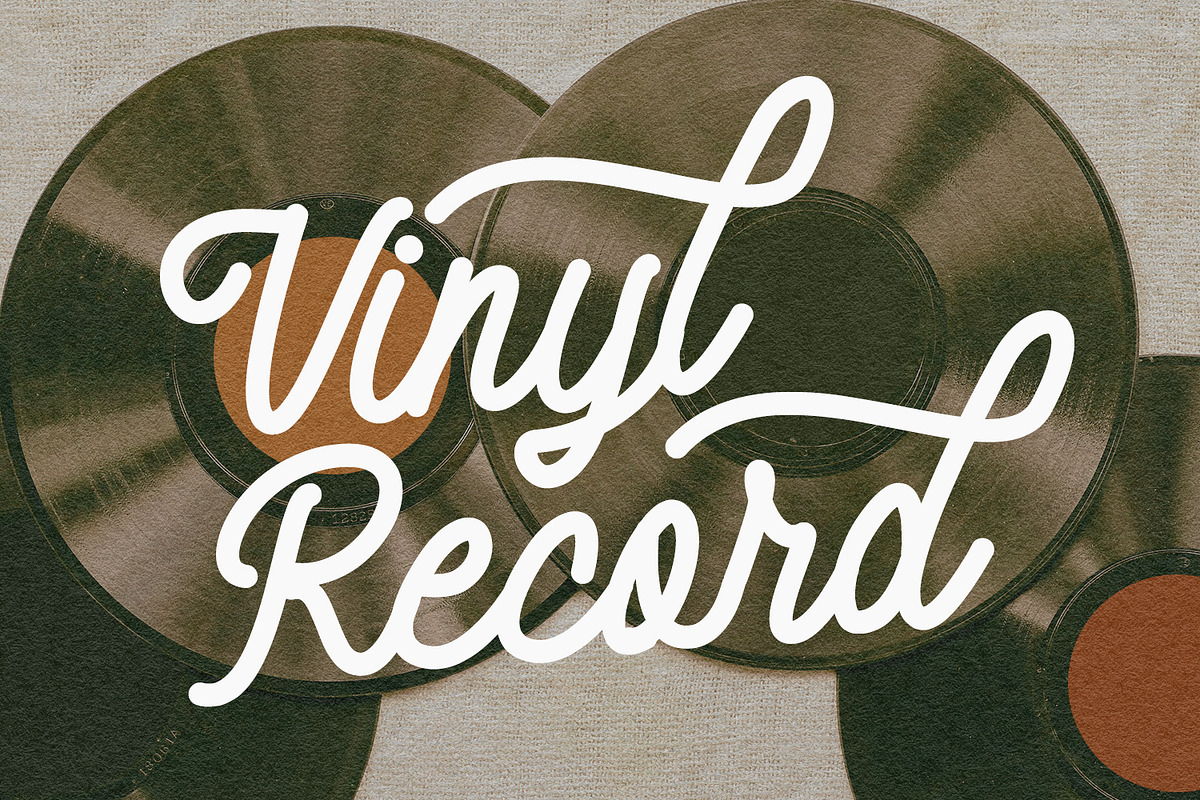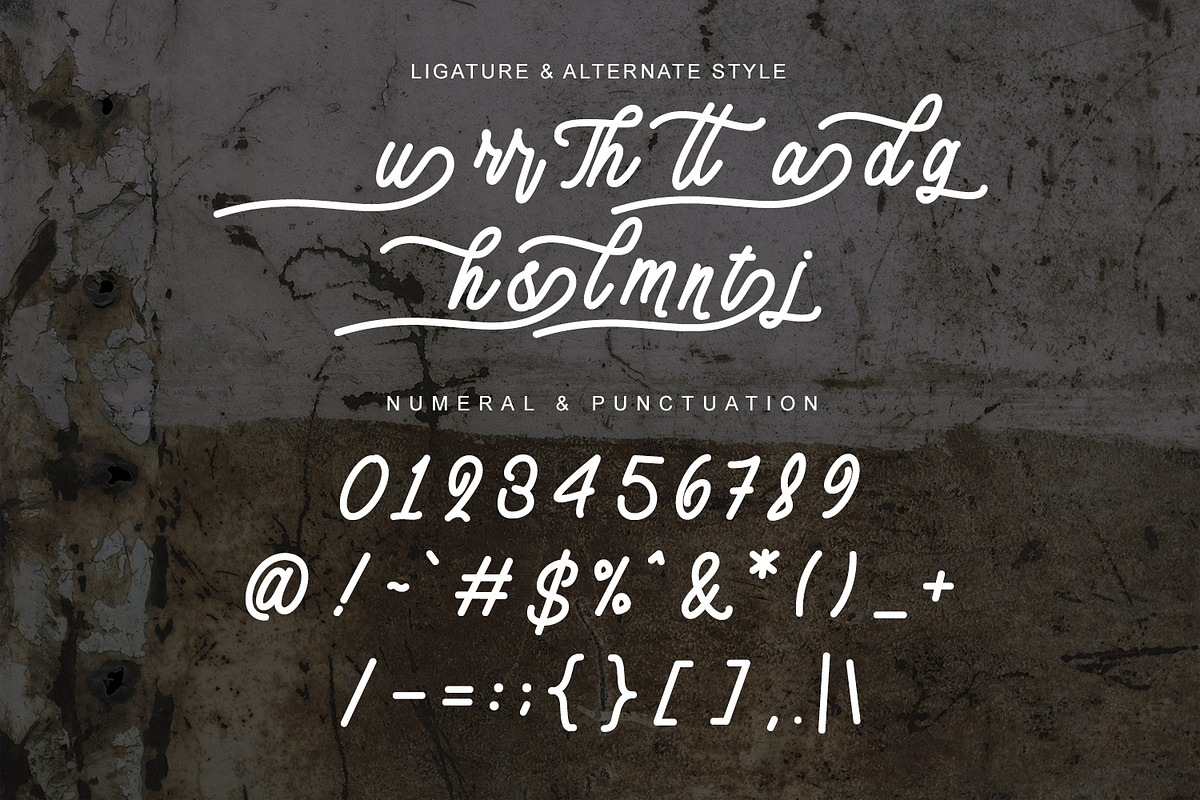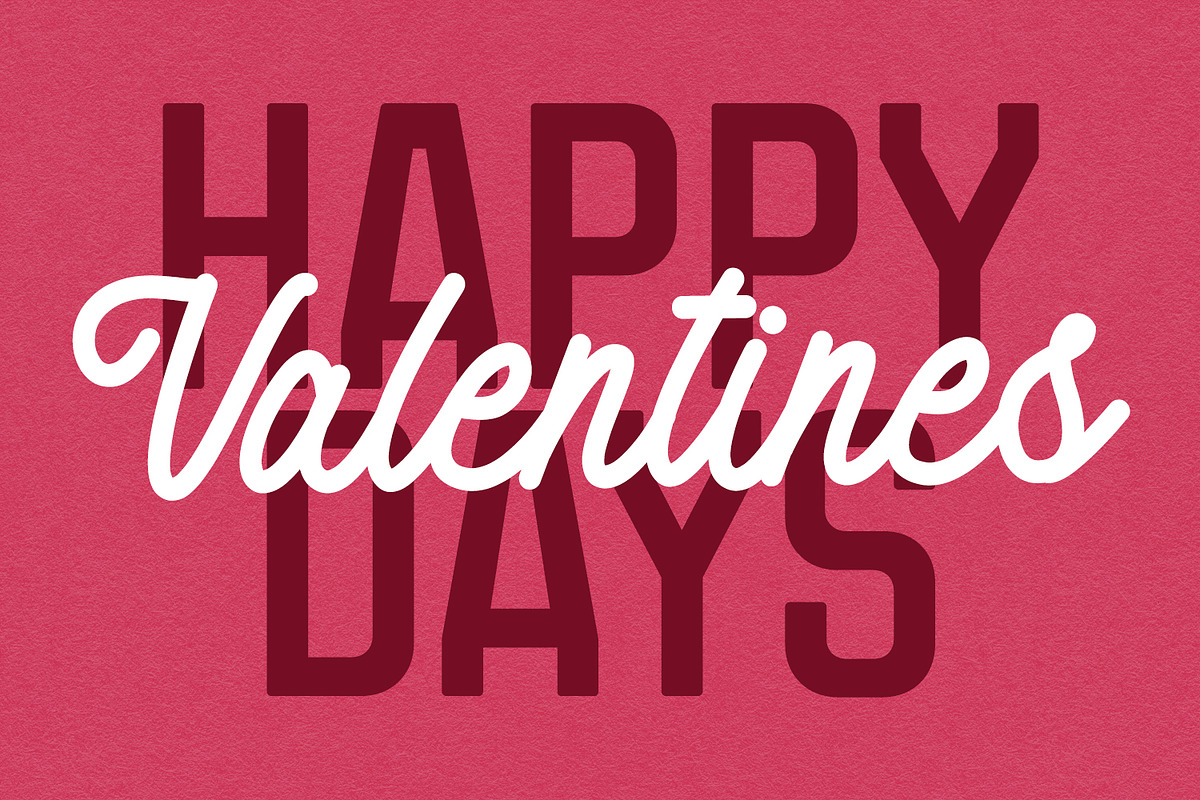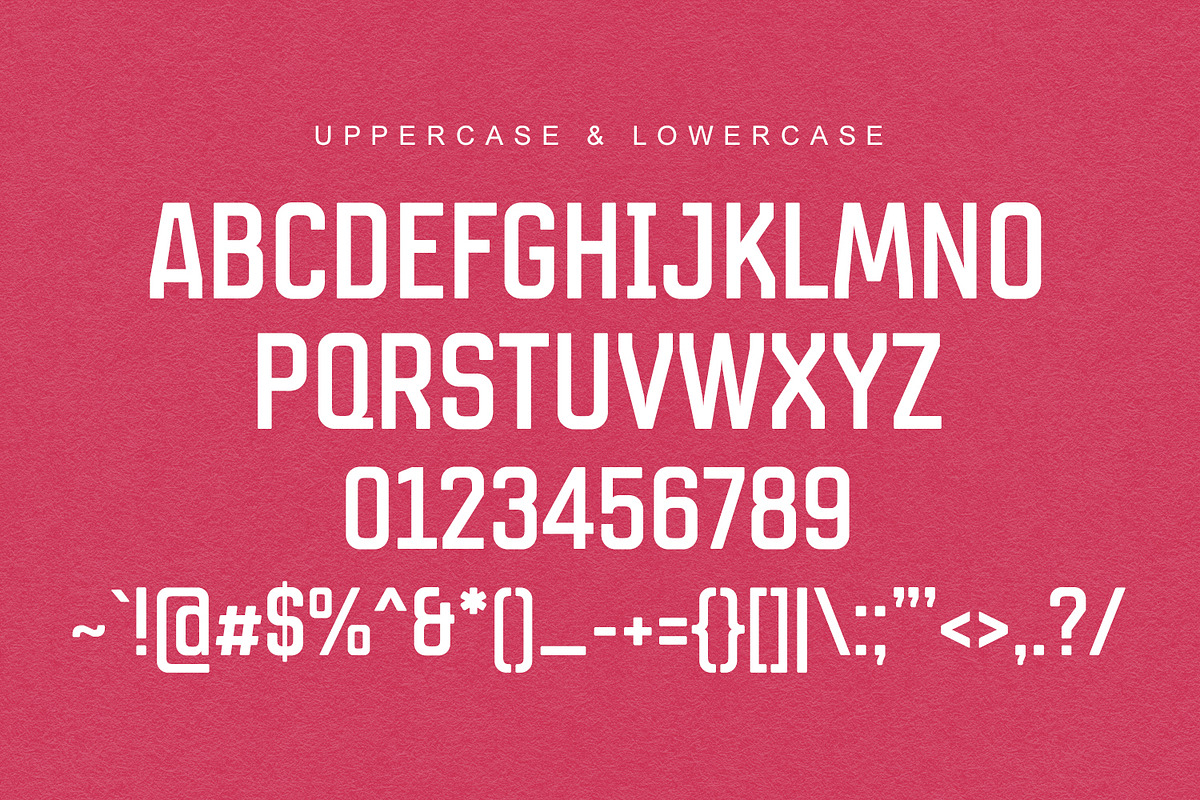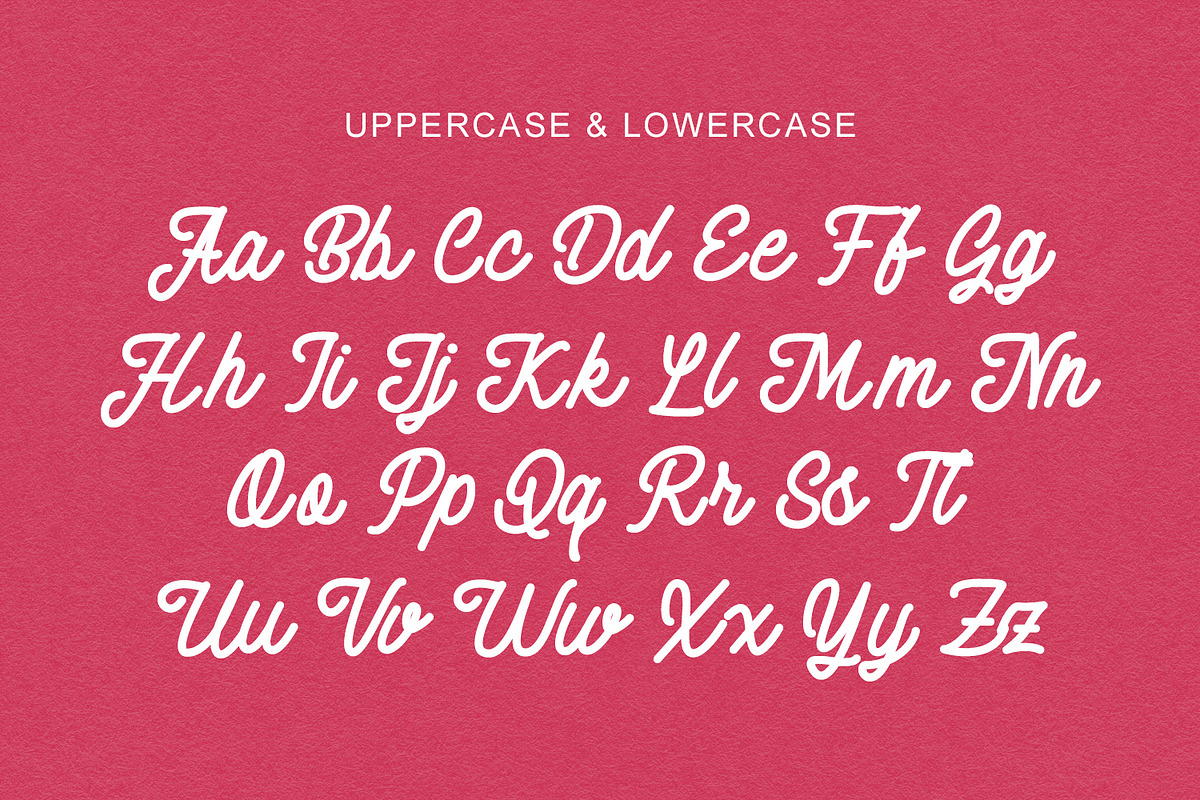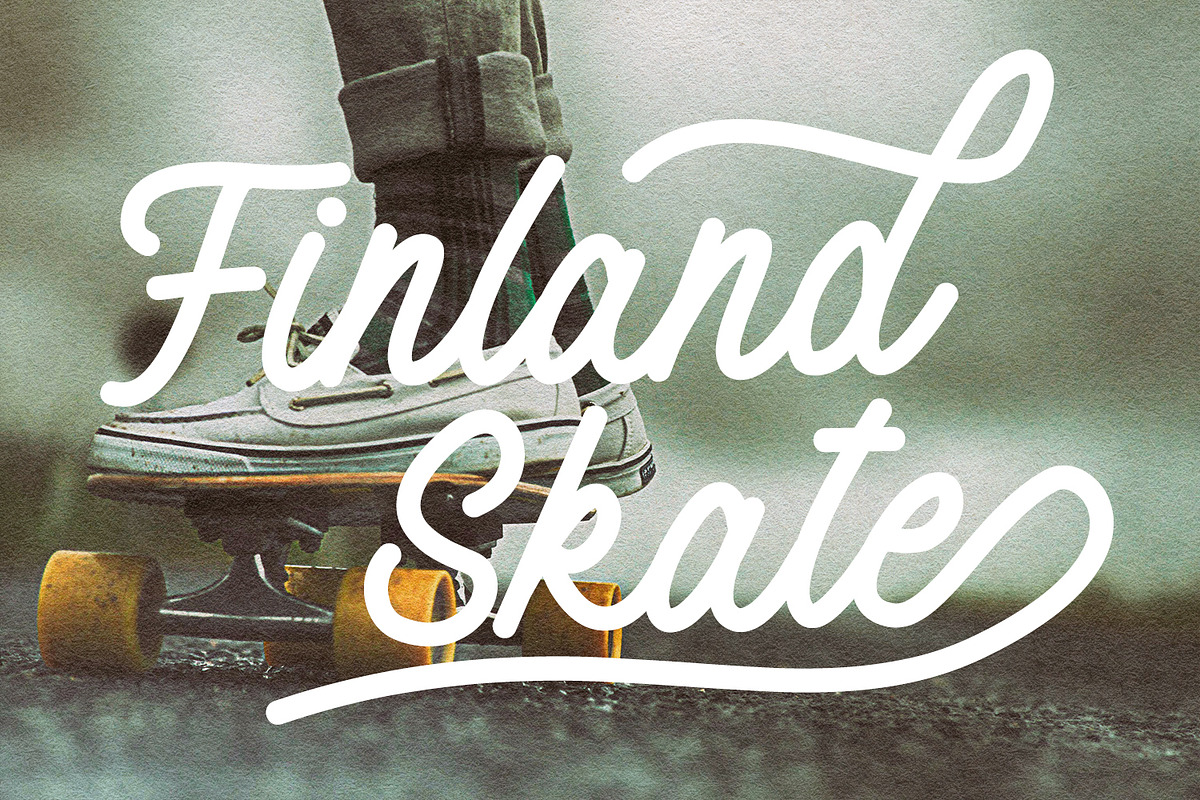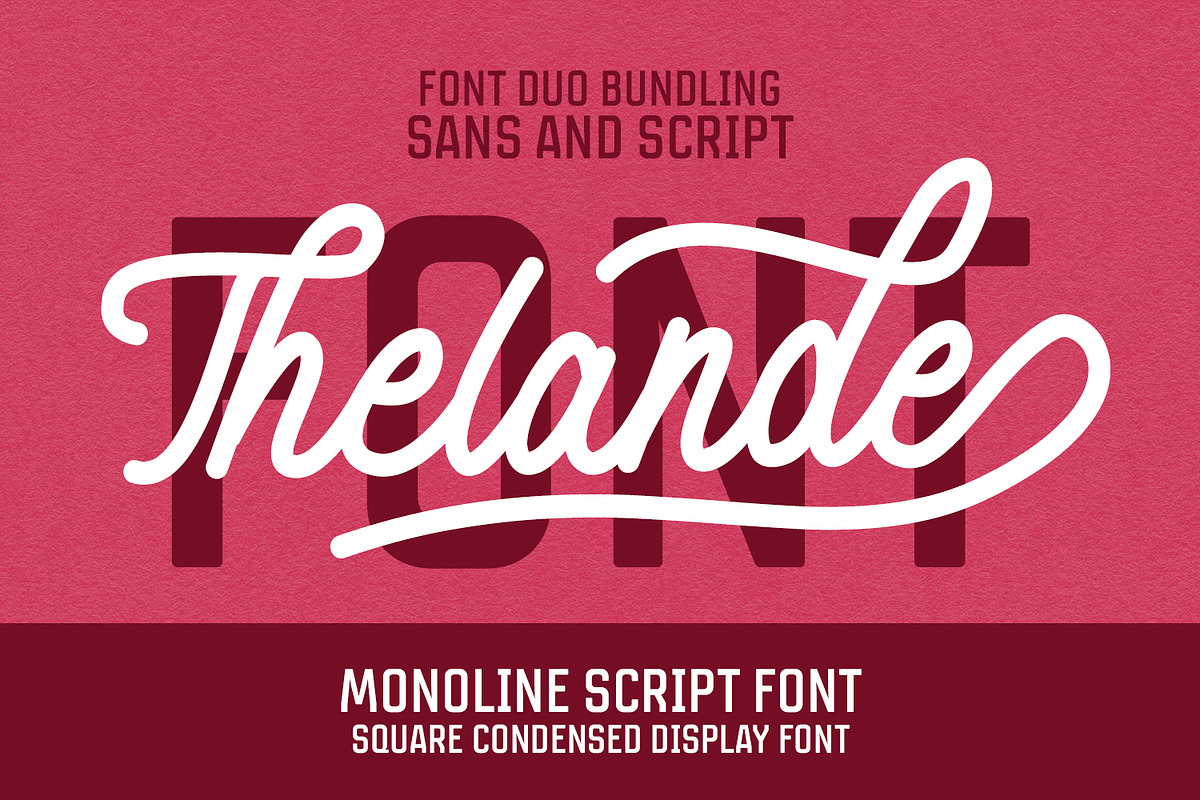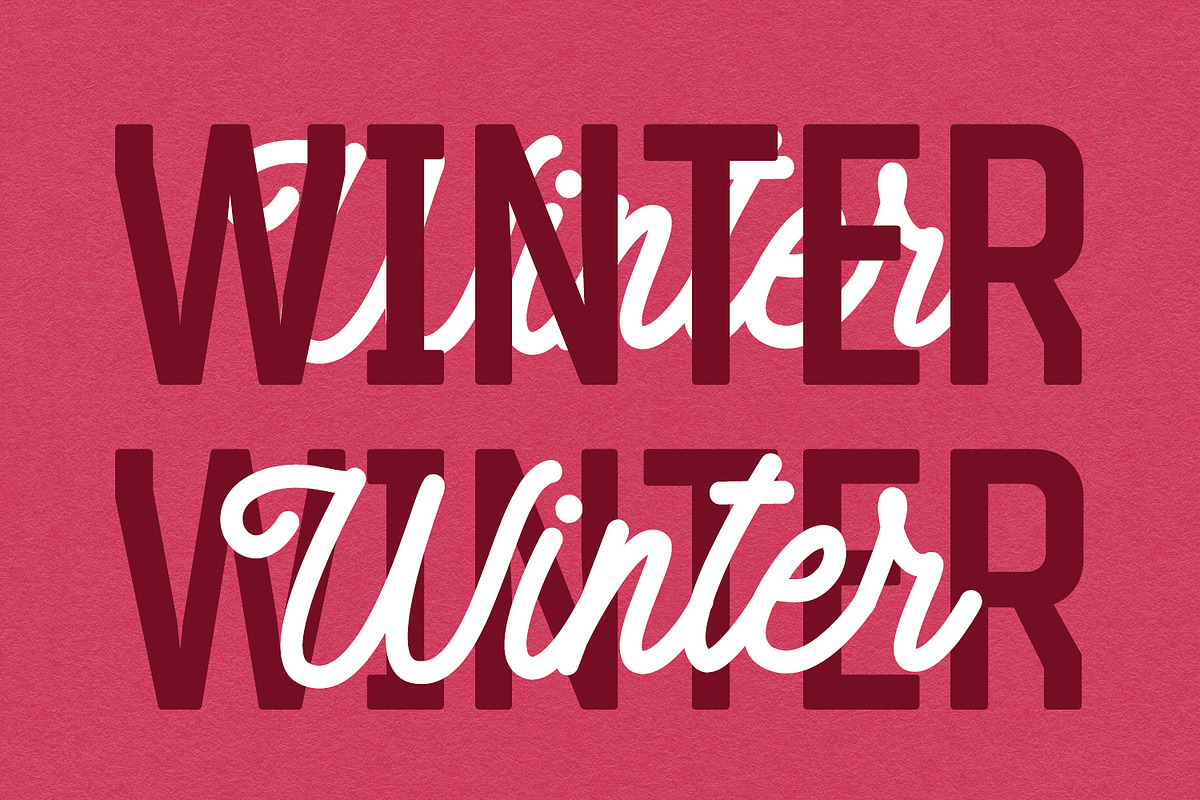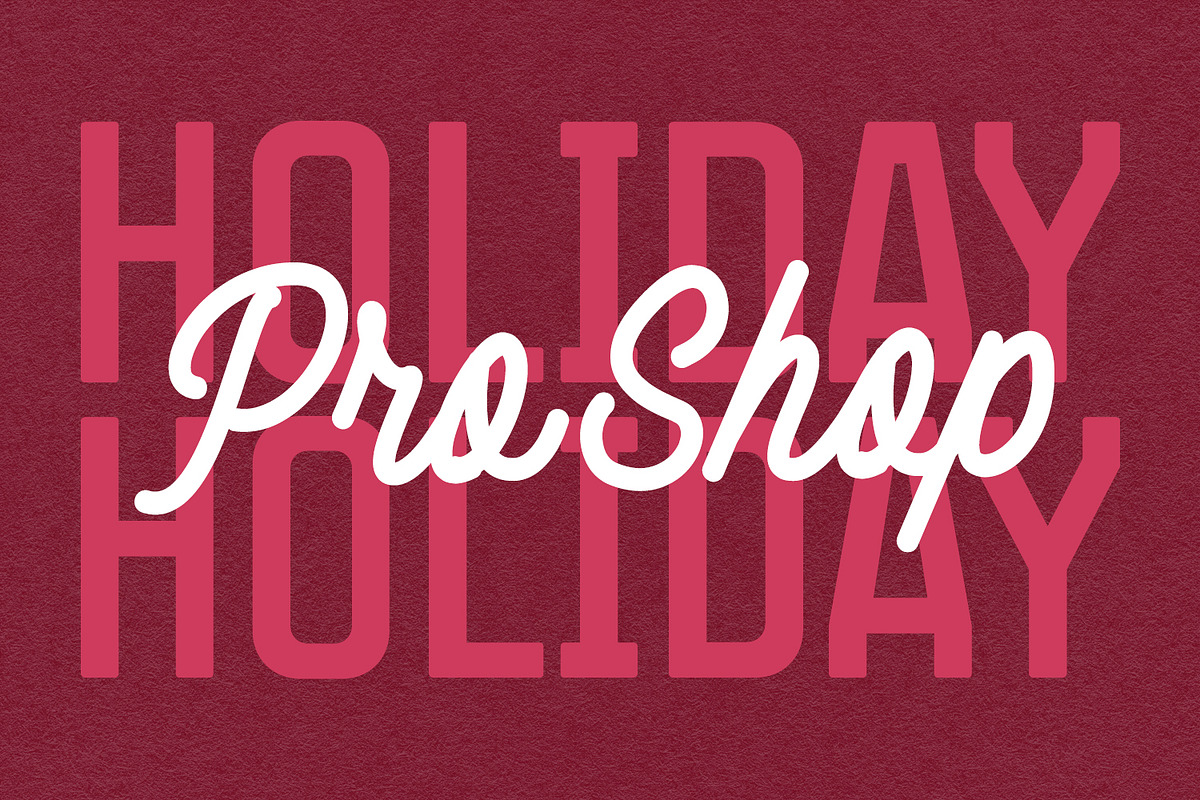
Thelande Script Vintage Free Sans
Give your designs an authentic brush handcrafted feel. “ Thelande Font Duo” is perfectly suited to signature, stationery, logo, typography quotes, website header, branding and more.